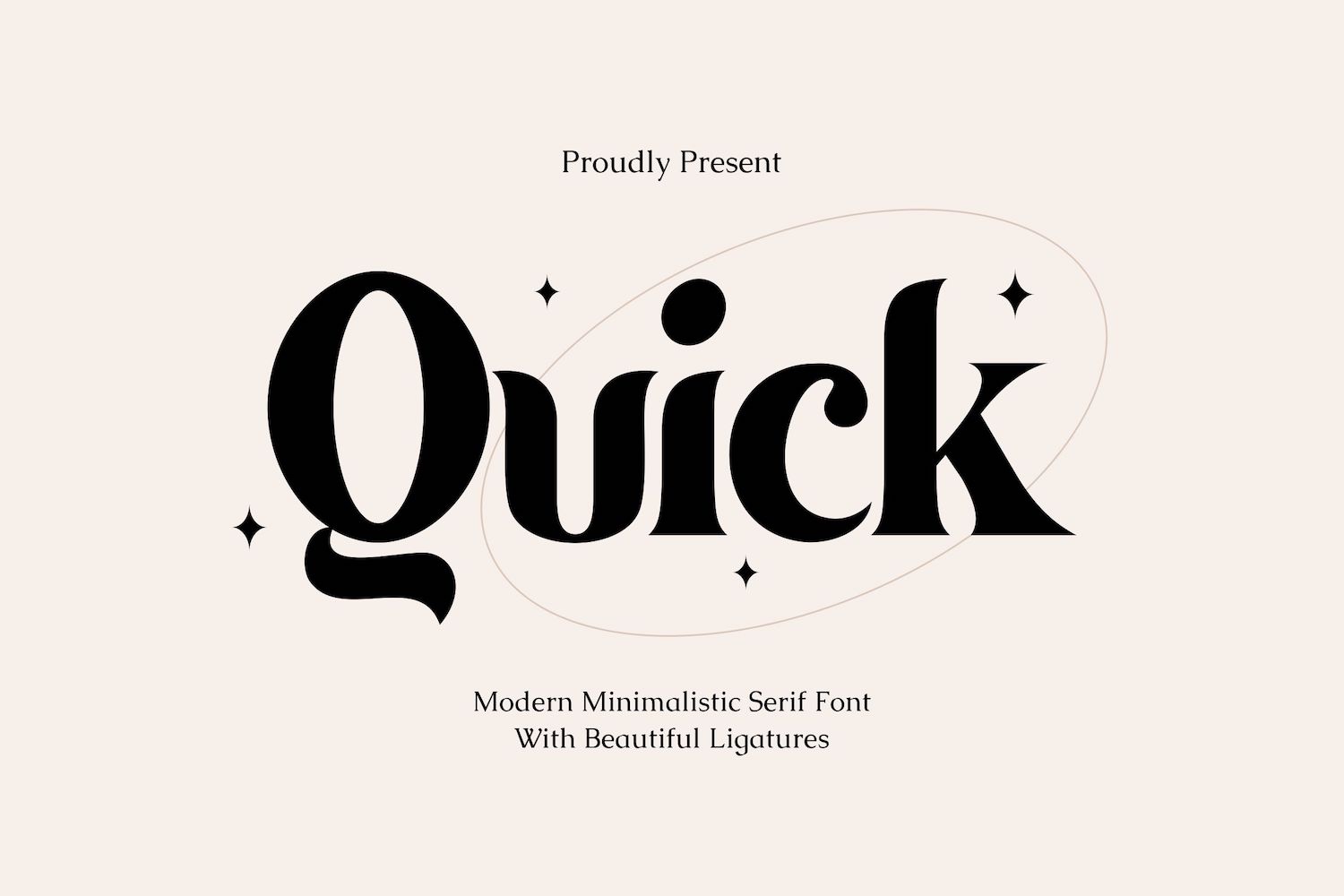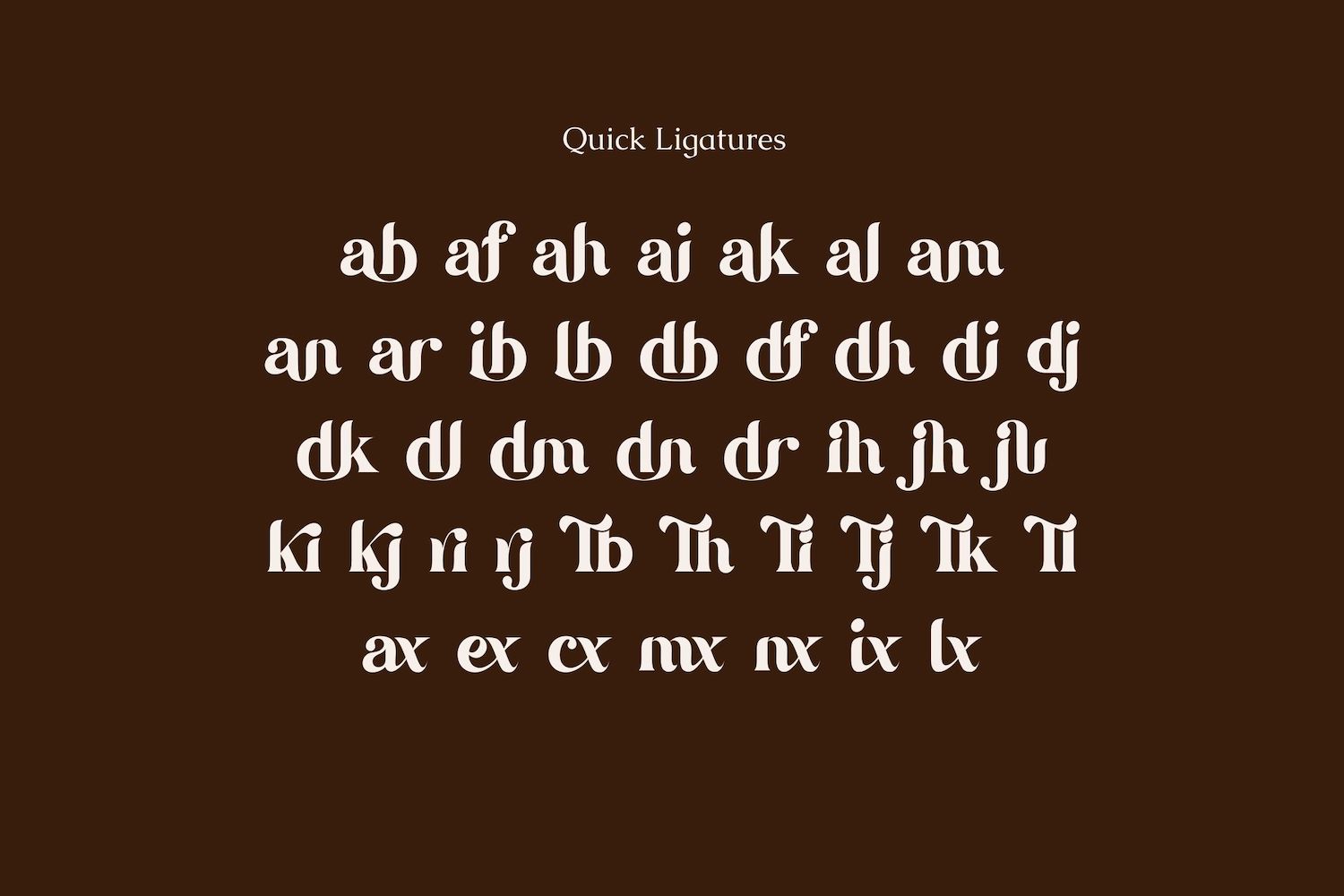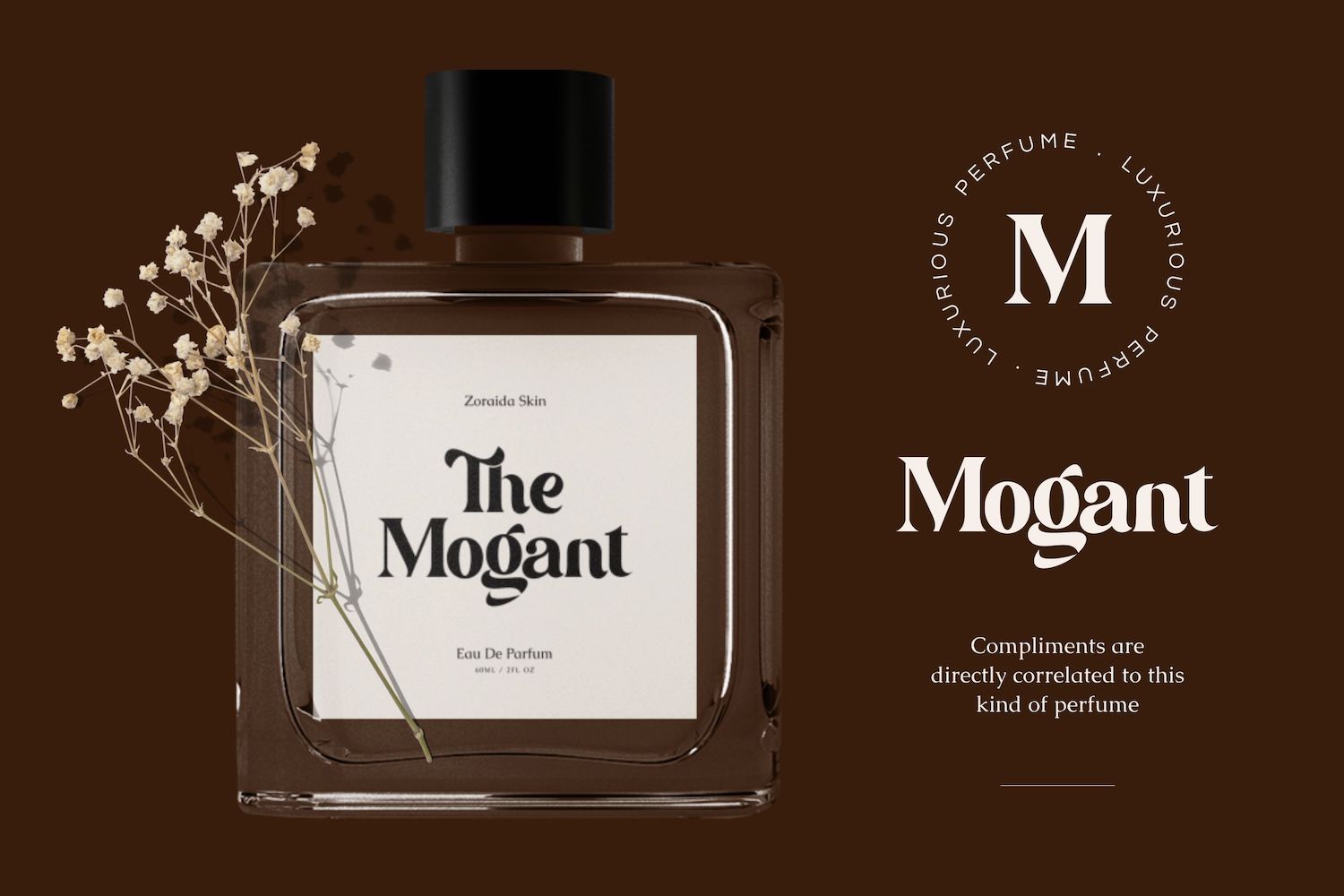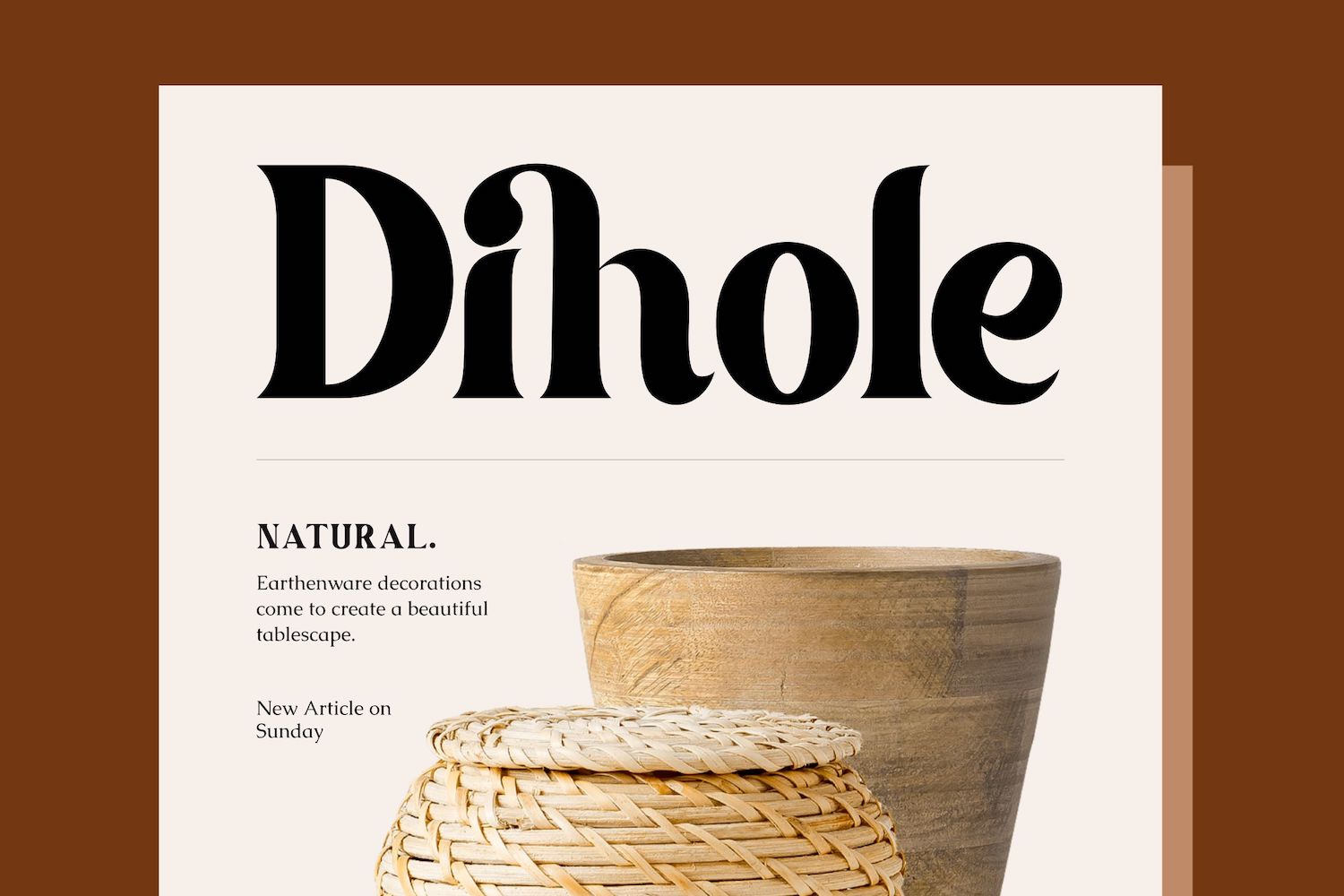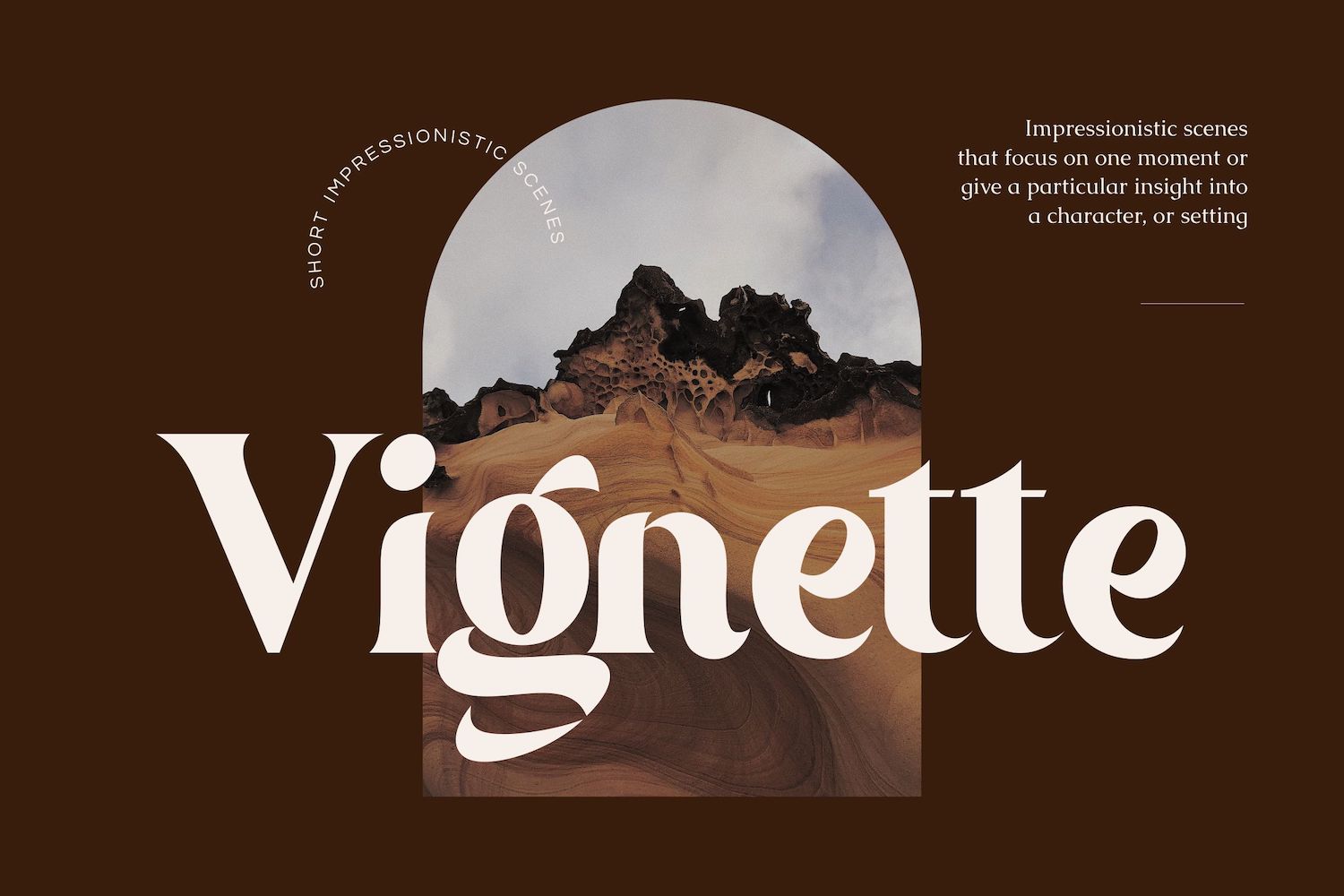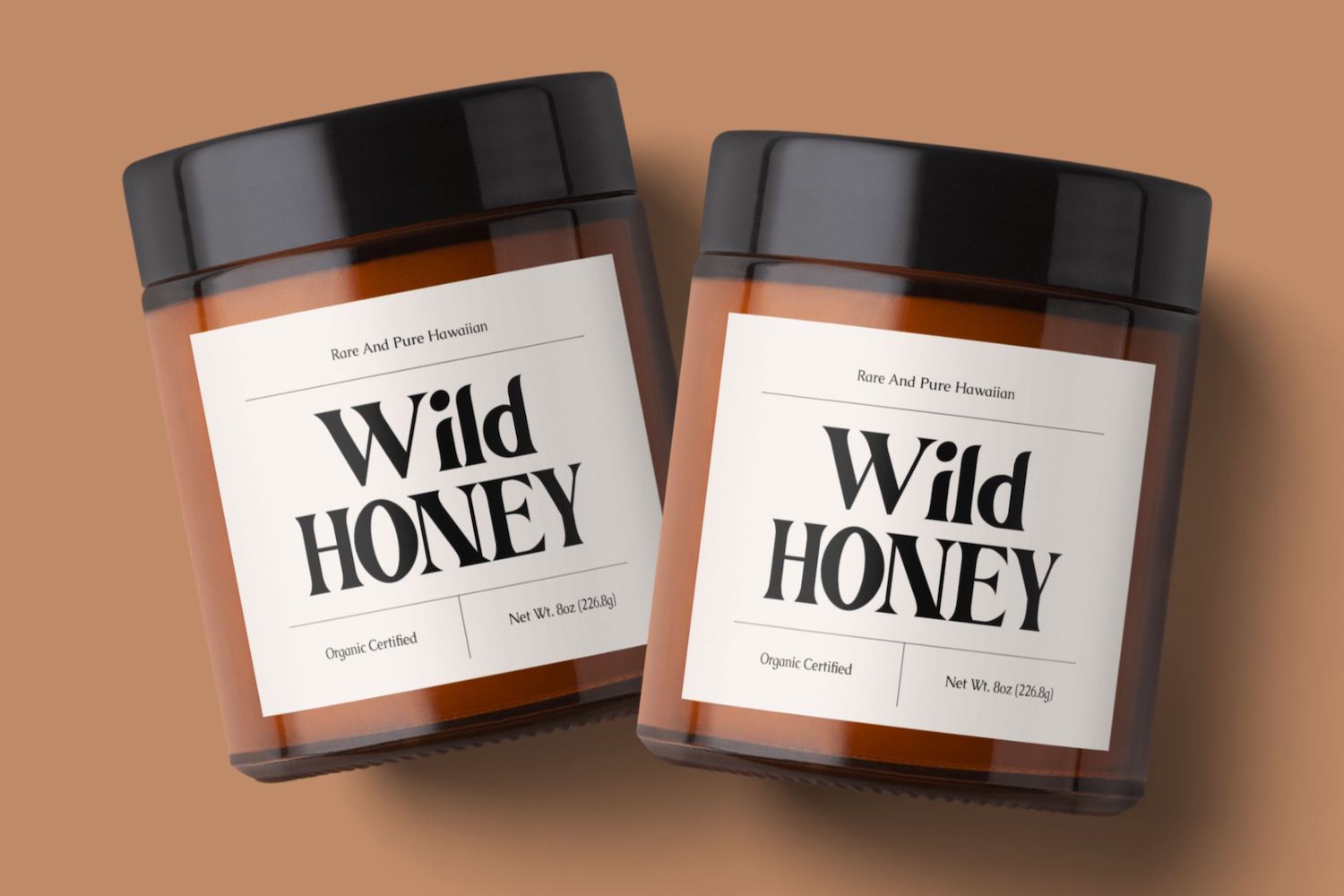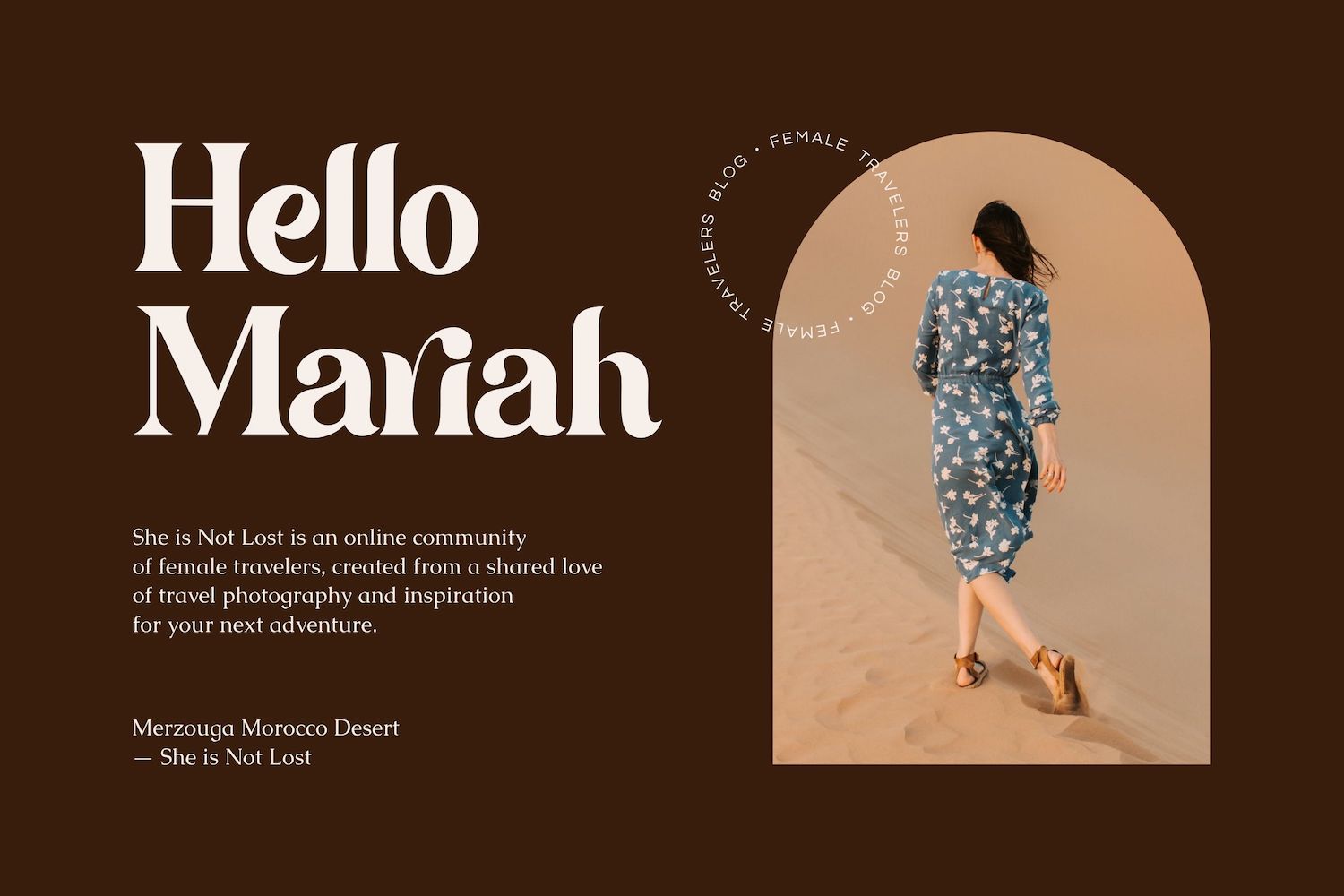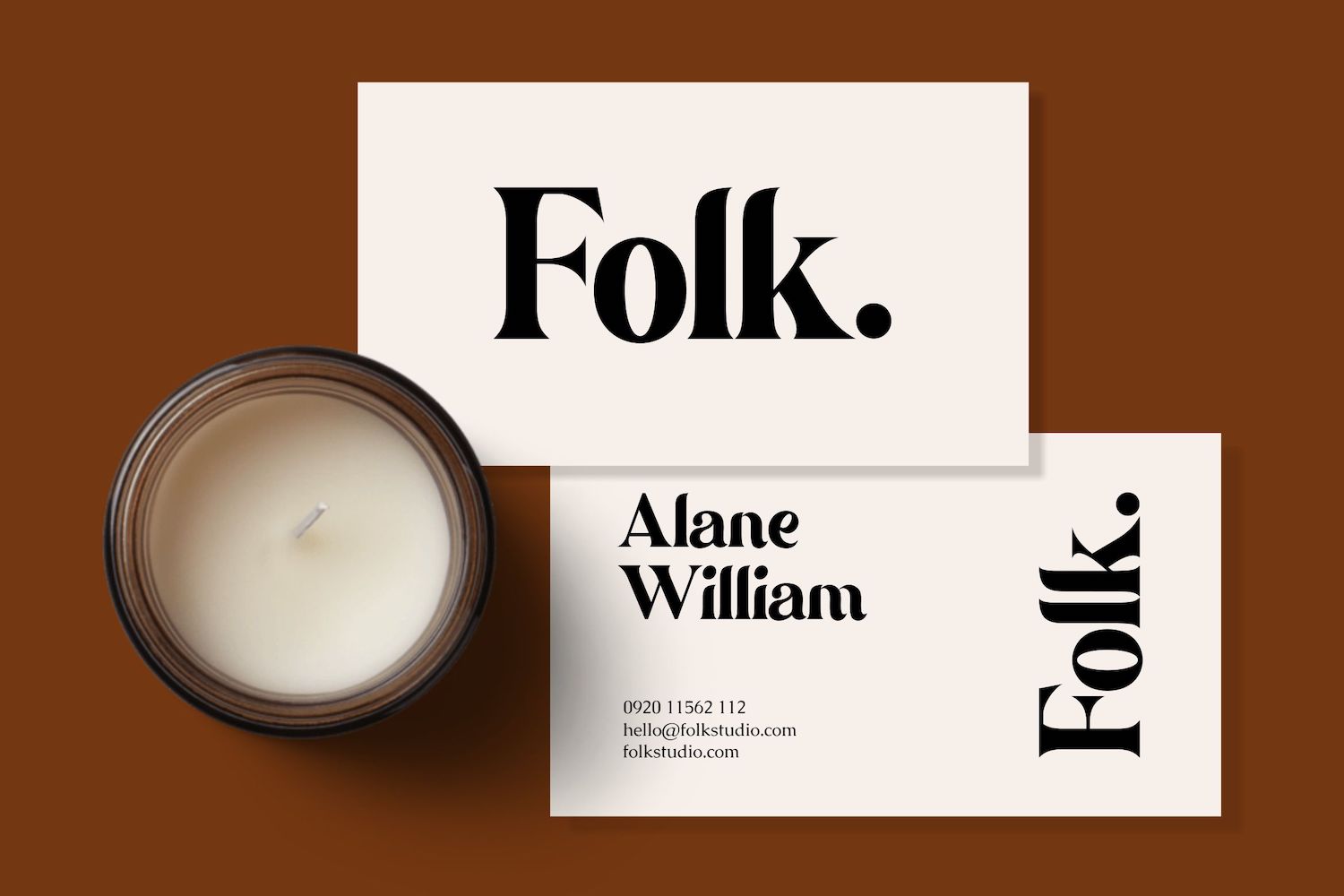
Quick is a modern serif font that perfectly blends minimalism with elegance. Its strong contrast and sharp curves create a luxurious yet approachable look, making it an ideal choice for branding, editorial layouts, and packaging. With carefully crafted ligatures and balanced letterforms, Quick offers a distinctive presence while maintaining excellent readability.
This font is highly versatile, whether you’re designing perfume labels, wedding invitations, magazine titles, or stylish logos, Quick delivers timeless sophistication. The font includes both uppercase and lowercase characters, numbers, punctuation, and a rich set of ligatures to elevate any creative project.